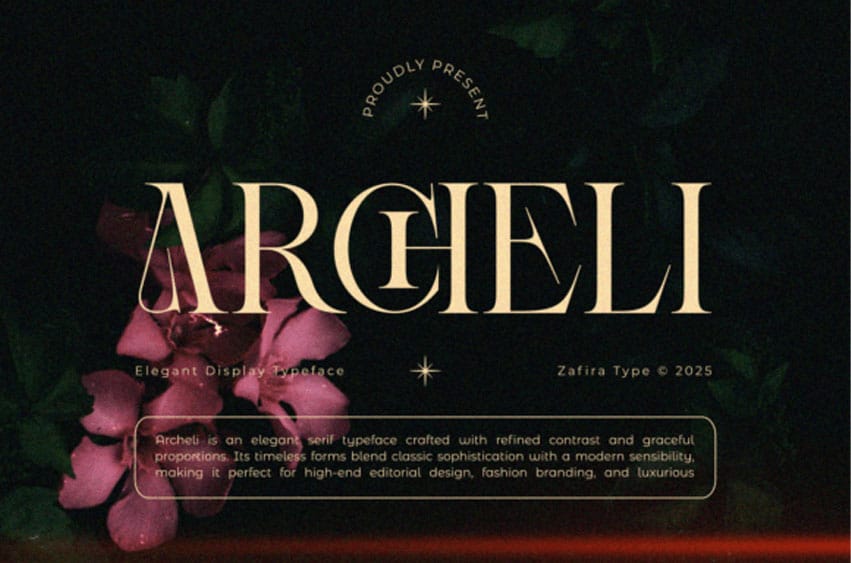
Archeli Font Experience the elegance of the Archeli font—an expertly crafted serif typeface with harmonious contrast and sleek proportions. It’s a seamless blend of classical allure and contemporary sophistication, seamlessly fitting for upscale editorial designs, high-fashion branding, and luxury stationery.
Archeli communicates with a subtly powerful voice, walking the line between delicate and dignified, expressive yet tastefully reserved. Indulge in the timeless aesthetic of Archeli and enhance your designs with its refined appeal.